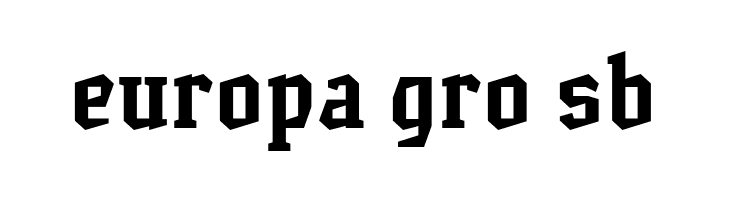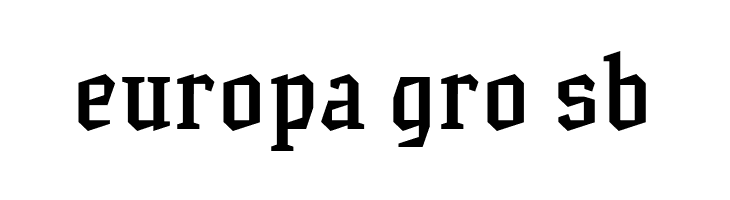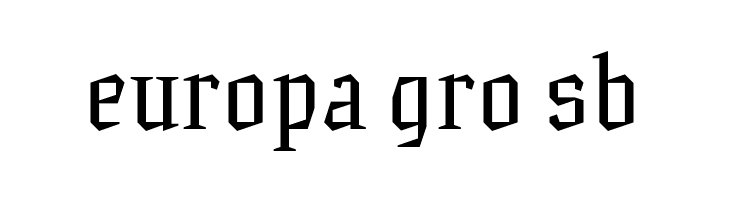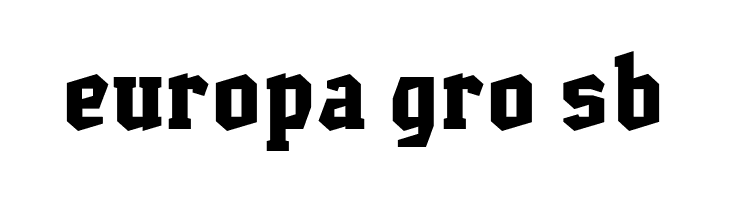
A bold, angular font with a vintage sports-inspired style.
A bold, angular font with a modern, industrial feel.
A bold, angular font with a modern, geometric style.
A bold, angular font with strong geometric shapes and sharp edges.